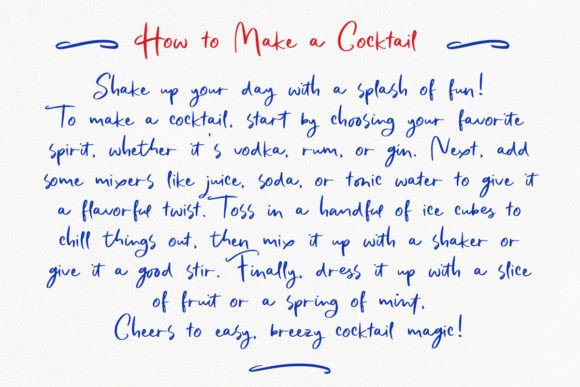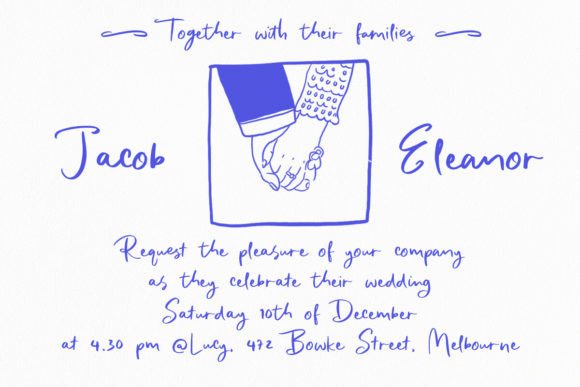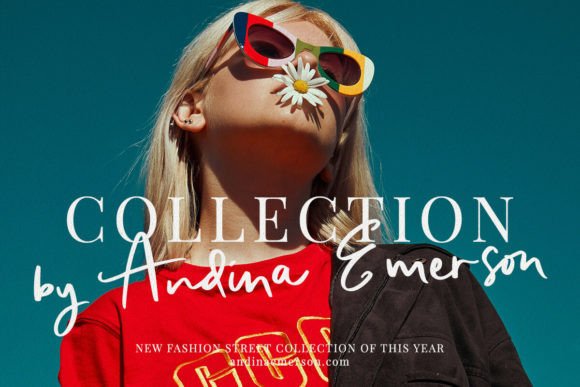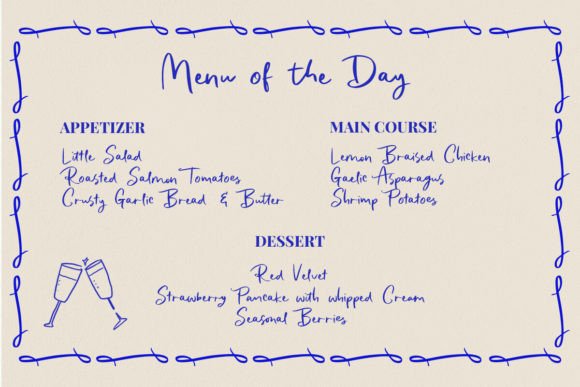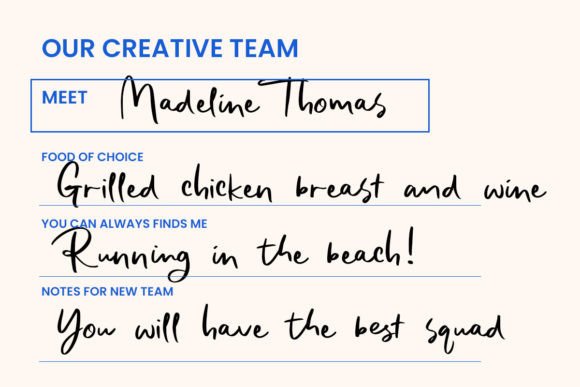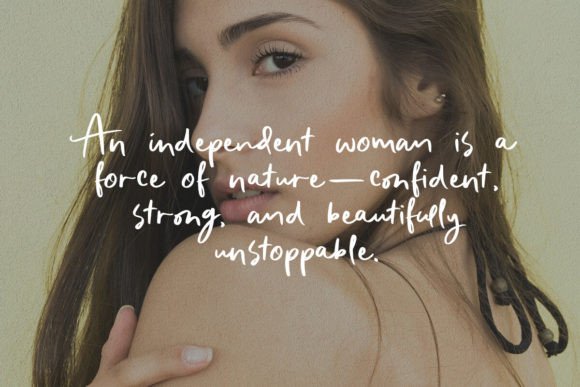
Love at First Sight: The Allure of Amore Valentino Font
Have you ever been working on a project, and suddenly, a font catches your eye? Maybe it’s the elegant curves, the stylish swashes, or the way it seems to dance across the page. That’s exactly what happened to me when I discovered the Amore Valentino Font. This natural and casual handwriting script font has a unique style that’s hard to resist.
As a designer, I know how much a great font can elevate a project. That’s why I’m excited to share the Amore Valentino Font with you. Perfect for adding a personal touch to wedding invitations, branding, and social media graphics, this font brings a touch of sophistication and charm to any design. With its elegant ligatures, multilingual support, and stylish swashes, the Amore Valentino Font is a valuable asset for any designer looking to add a little love to their work.
Key Features of Amore Valentino Font
- Unique Script Style: Amore Valentino features a beautiful, elegant script style with flowing connections and subtle flair, perfect for creating romantic and whimsical designs.
- Extensive Character Set: The font includes a comprehensive character set, including uppercase and lowercase letters, numbers, punctuation marks, and special characters, making it ideal for a wide range of applications.
- Professional and Elegant: Amore Valentino is designed to evoke a sense of sophistication and refinement, making it an excellent choice for high-end designs, such as wedding invitations, luxury branding, and fine art.
- Perfect for Handwritten Text: The font’s script style and flowing connections make it perfect for creating handwritten text effects, adding a personal touch to designs and communications.
Amore Valentino Font Review
Overall, I think the Amore Valentino font is a beautiful addition to any design project. Its elegant, cursive script is perfect for creating a romantic or whimsical atmosphere. ✨ I love how the font flows smoothly, making it great for long text passages or headings.
One of the standout features of this font is its versatility. It comes in a range of weights and styles, from light and delicate to bold and dramatic. ✨ This makes it easy to find the perfect version to suit your design needs.
While the Amore Valentino font is generally well-behaved, there are a few limitations to be aware of:
- ⚠️ The font may not be suitable for digital displays or small text sizes, as the lines can become blurry or difficult to read.
Overall, I think the Amore Valentino font is a great choice for designers looking to add a touch of elegance to their projects. While it may have some limitations, the benefits far outweigh the drawbacks.
Getting the Most Out of Amore Valentino Font
To get the most out of Amore Valentino Font, consider the following tips:
- Use it for romantic or vintage-themed designs.
- Pair it with distressed or watercolor effects for a unique look.
Amore Valentino Font is commonly used for:
- Romantic greeting cards and posters.
- Vintage-inspired advertising and branding.
Alternatives to Amore Valentino Font
Playfair Display is a luxurious and elegant serif font, ideal for creating a high-end look and feel. It is perfect for use in branding, invitations, and other formal designs where sophistication is required. In comparison to Amore Valentino Font, Playfair Display is more dramatic and ornate, making it suitable for those who want to make a statement.
Didot is a classic and refined serif font, often used in high-end fashion and luxury branding. It is ideal for use in formal designs, such as magazine covers, fashion labels, and upscale packaging. In comparison to Amore Valentino Font, Didot is more subdued and understated, making it suitable for those who want a sophisticated look without the drama.